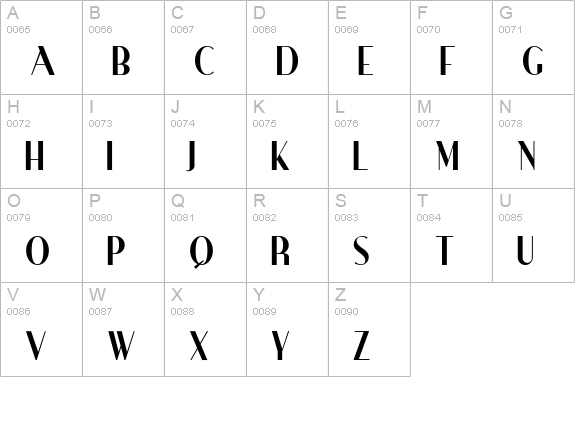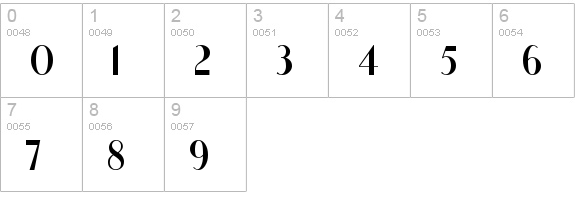
Ironick-Normal is the standard, neutral variant in the Ironick typeface family \xE2\x80\x94 well suited to general body text, paragraphs, and standard typographic work.
Ironick-Normal is a modern and versatile font that effortlessly blends strength and elegance. With its clean lines and balanced proportions, this font exudes a sense of professionalism and sophistication. Its timeless design makes it suitable for a wide range of projects, from branding and advertising to web design and editorial work. One of the most remarkable aspects of Ironick-Normal is that it is available for free. That's right, you can download this exceptional font at no cost from FontsMarket.com. This means that you can enhance your designs with a high-quality typeface without breaking the bank. Whether you're a graphic designer looking to add a touch of professionalism to your latest project or a content creator in need of a font that will captivate your audience, Ironick-Normal is the perfect choice. Its versatility and elegance make it suitable for both headings and body text, ensuring that your message is conveyed with utmost clarity and impact. The careful attention to detail in Ironick-Normal is evident in every character, from its precise curves to its consistent spacing. This attention to detail ensures a seamless and harmonious reading experience, allowing your audience to effortlessly engage with your content. With its wide range of weights and styles, Ironick-Normal offers endless possibilities for creative expression. Whether you prefer a bold and commanding look or a more subtle and refined aesthetic, this font has got you covered. So why wait? Download Ironick-Normal today from FontsMarket.com and elevate your designs to new heights. With its exceptional quality and the fact that it is freely available, this font is a must-have for any designer or creative professional. Don't miss out on this incredible opportunity to enhance your work and leave a lasting impression on your audience.